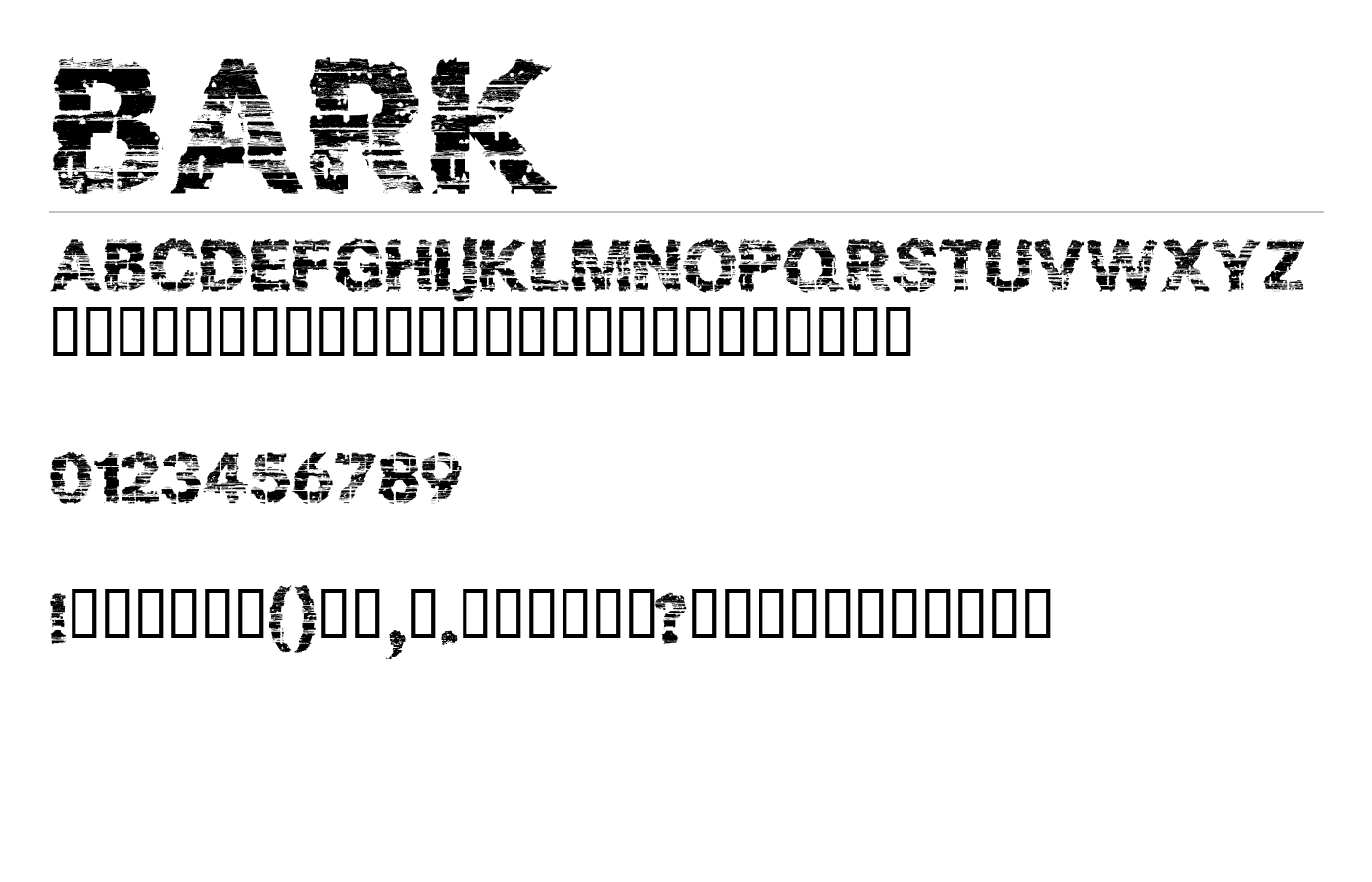
BARK is a bold, distressed sans serif font characterized by its rugged, textured appearance that mimics worn or bark-like surfaces. Its strong, wide letterforms with irregular rough edges create a gritty, industrial feel, making it ideal for impactful headlines, posters, and branding that require a raw, edgy, and vintage-inspired look. This font works well where a sense of toughness and authenticity is needed, such as outdoor, grunge, or urban-themed designs.
BARK Font